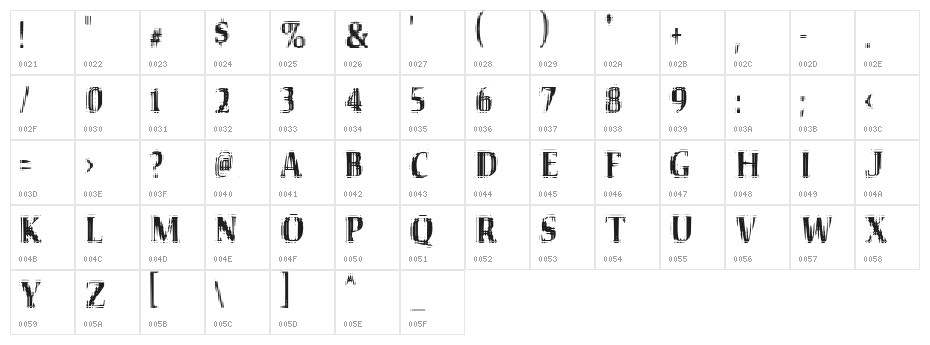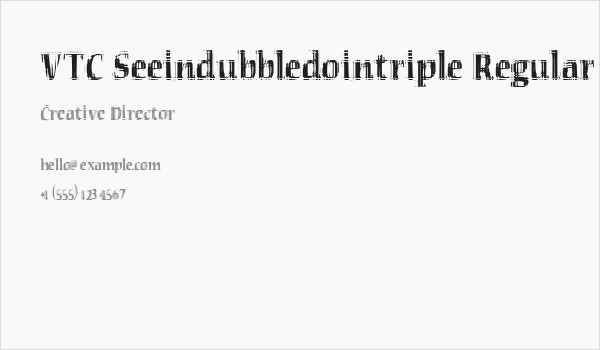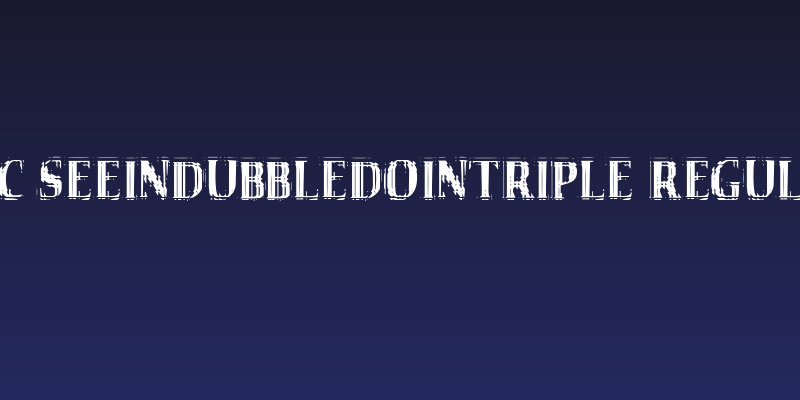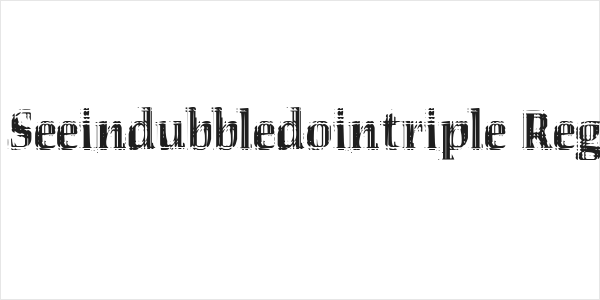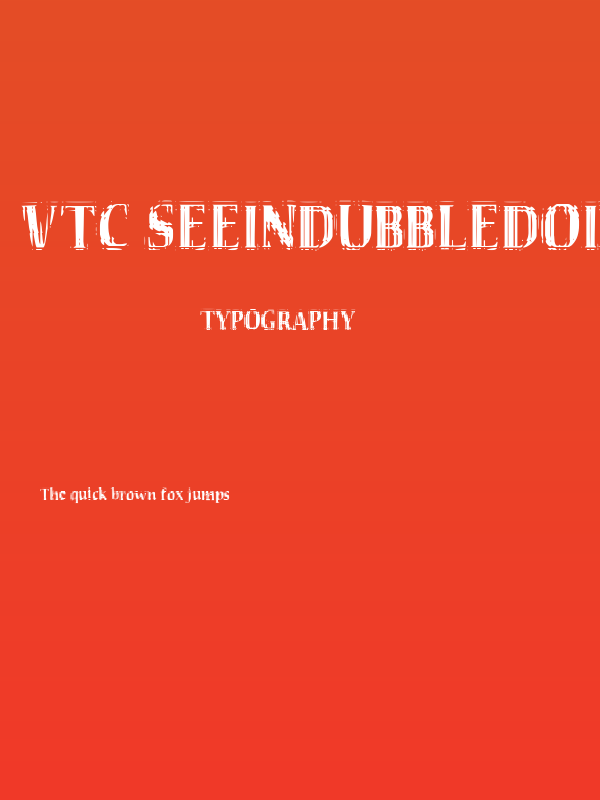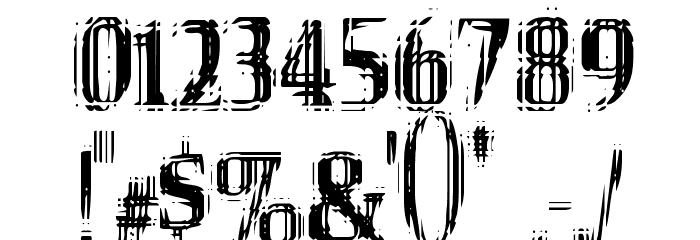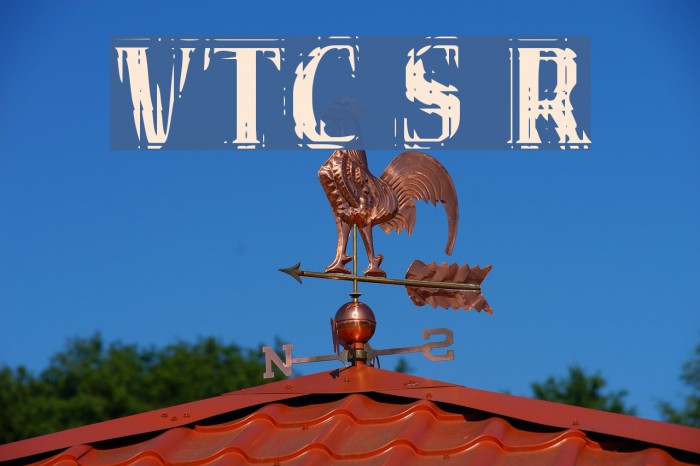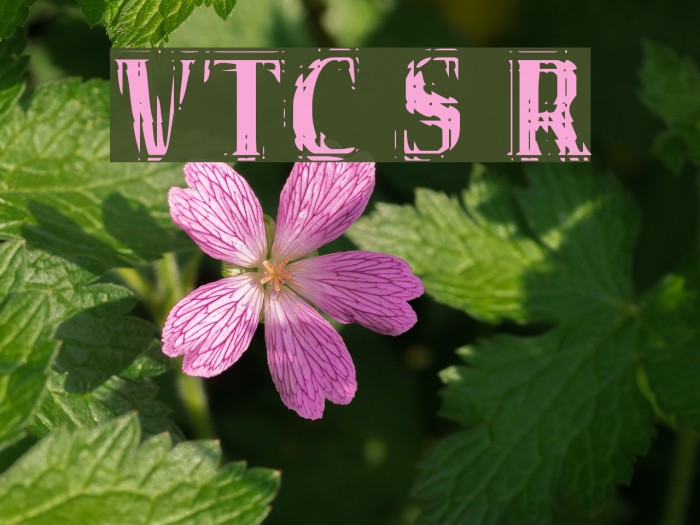
VTC Seeindubbledointriple Regular Font
VTC Seeindubbledointriple Regular Description
This font features a unique, distressed style that gives the impression of a glitch or digital distortion. The characters are bold and have a strong presence, with irregular edges and a layered appearance that suggests movement or duplication. The uppercase and lowercase letters maintain a consistent height, while the numbers and special characters follow the same design aesthetic, ensuring a cohesive look. This font's distinctive style makes it stand out, offering a modern twist on traditional typography.
| Overall Style | Modern, Decorative |
| Proposed Projects | Ideal for digital art projects, edgy branding, music album covers, or any design requiring a modern, unconventional look. |